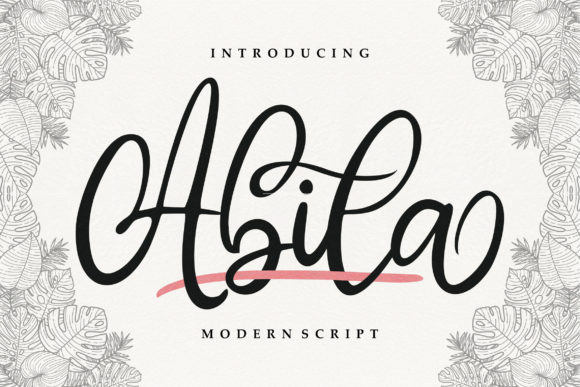
Introducing Abila Font: The Epitome of Elegance and Beauty
In the realm of typography, where fonts dance like graceful notes on a musical staff, Abila Font emerges as a masterpiece. This exquisite script font, crafted by the visionary minds at Vunira, embodies the very essence of refinement and charm. With its delicate strokes, elegant curves, and beautifully balanced characters, Abila transforms your creations into works of art.
Step into a world of limitless possibilities, where Abila's enchanting presence lends a touch of sophistication to your designs. Its versatility knows no bounds, seamlessly adapting to a myriad of styles and themes. Whether you seek to capture the vibrant energy of a concert poster, design an alluring invitation, or craft a heartfelt message, Abila stands as your faithful companion.
Immerse yourself in the world of Abila, where creativity flourishes and imagination takes flight. Its flowing lines evoke a sense of movement and grace, drawing the eyes of your audience and captivating their hearts. Let Abila's elegance elevate your designs, transforming them into masterpieces that resonate with beauty and leave a lasting impression.